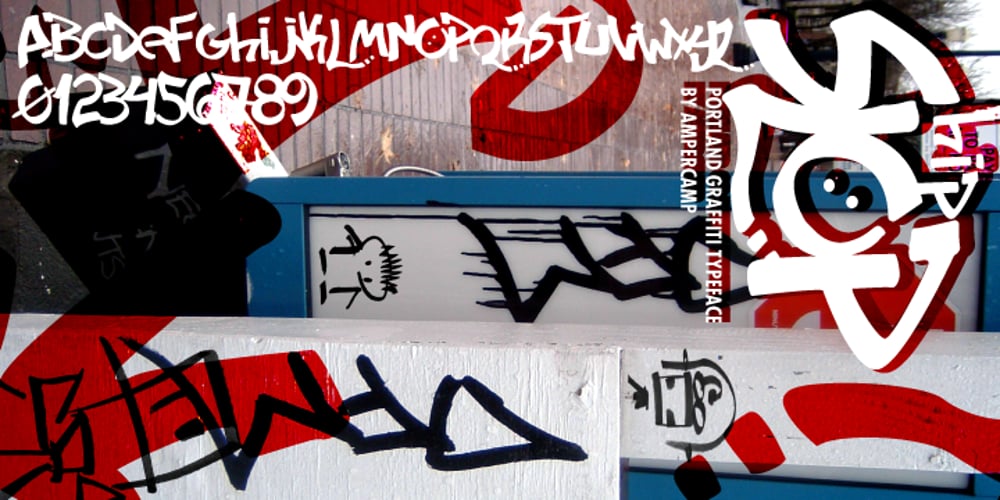
Hip Slop Font Family was designed by Tyler Sticka and published by Ampercamp. Hip Slop contains 1 styles and family package options. Inspired by field research of marker graffiti in the Pearl District of Portland, Oregon, Hip Slop is an urban all-caps typeface with a serendipitous edge. Includes over 60 unique characters to accomodate any message worth defacing property for.